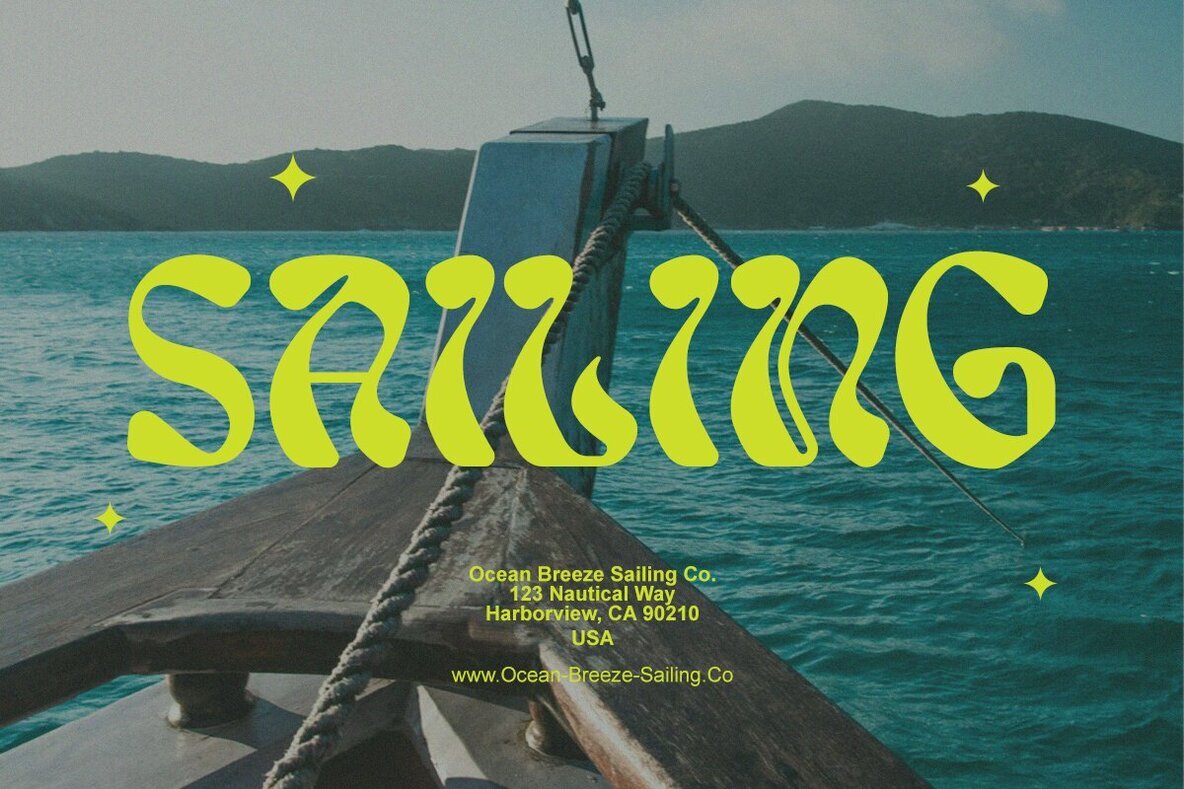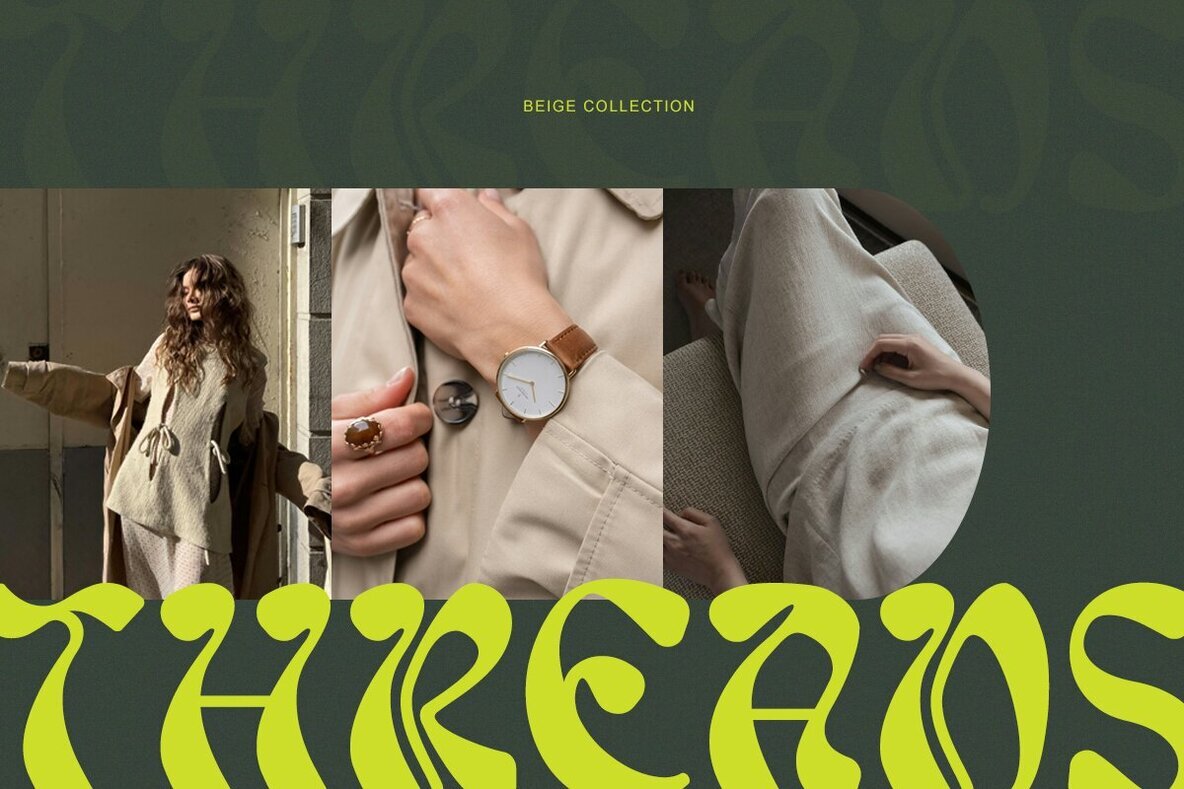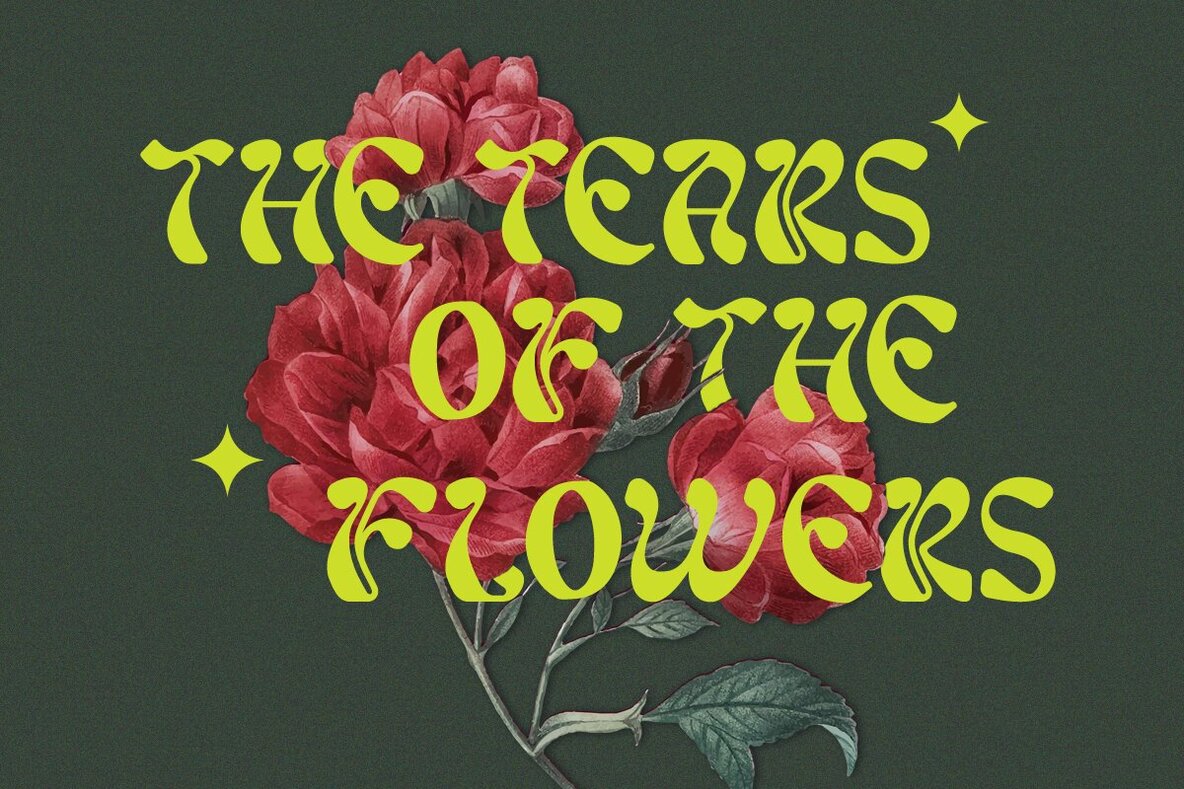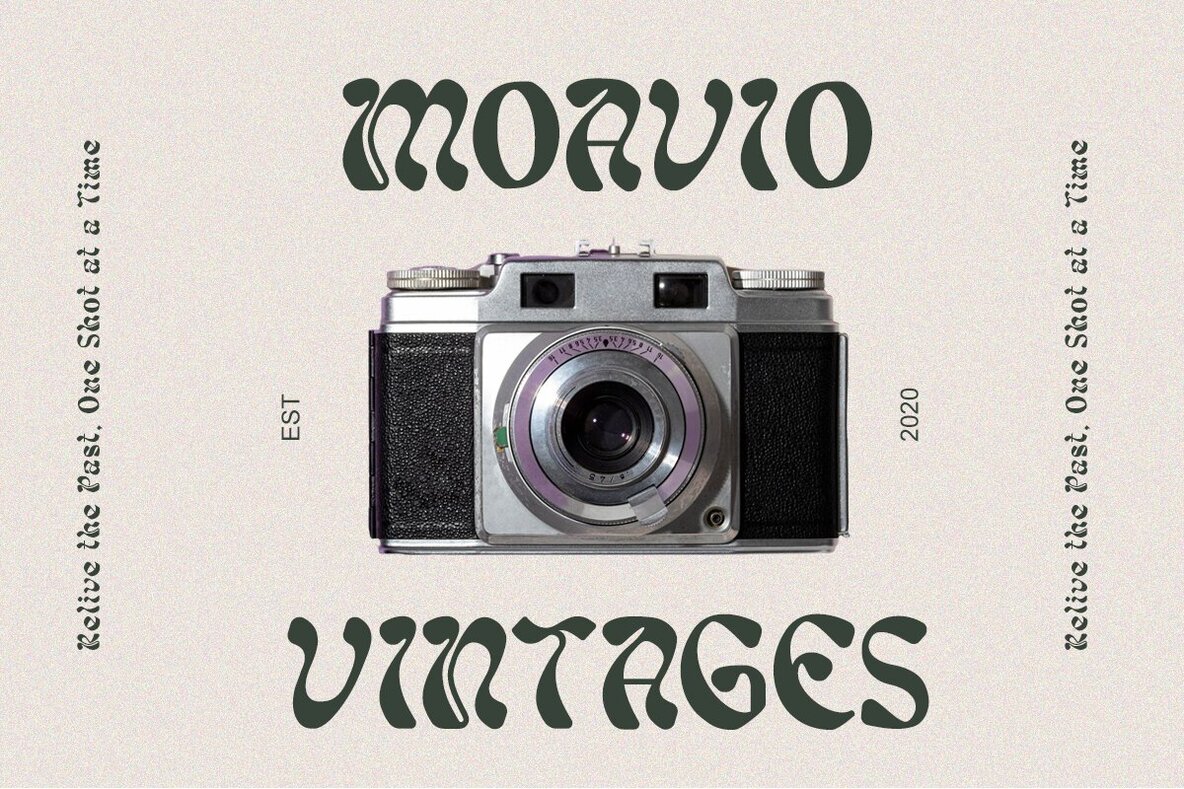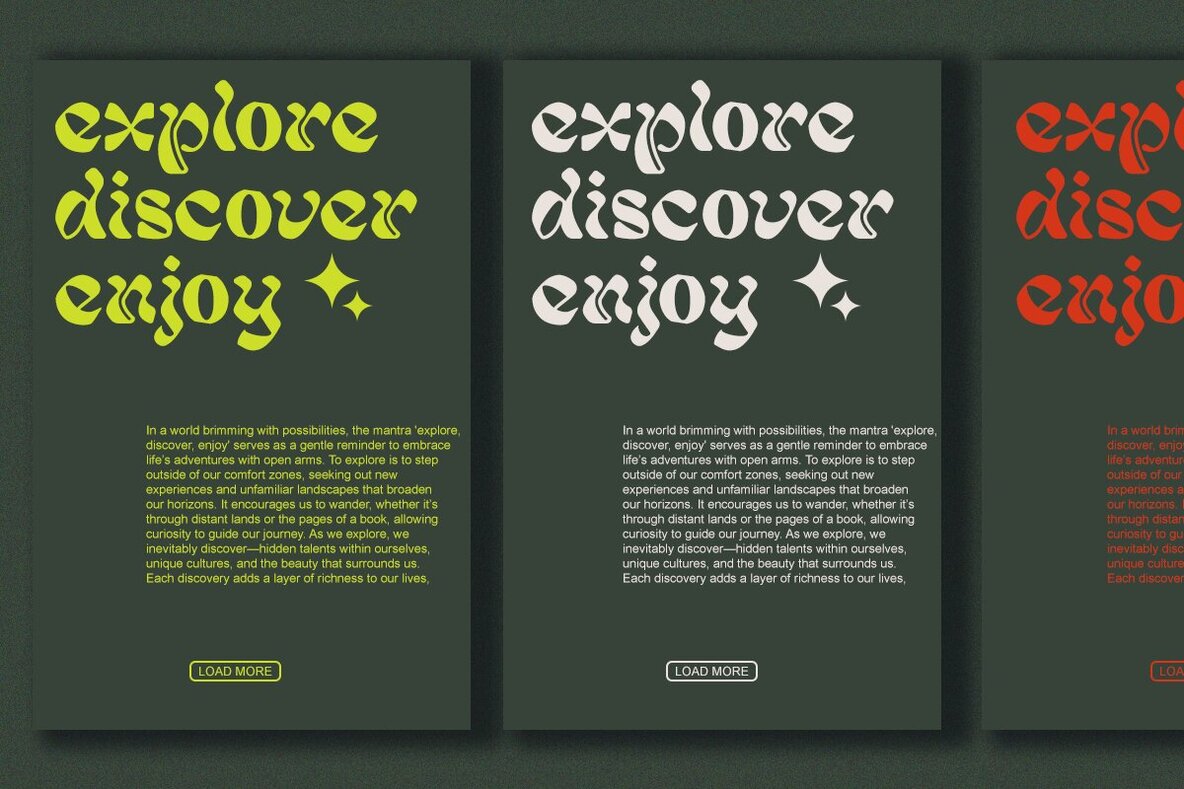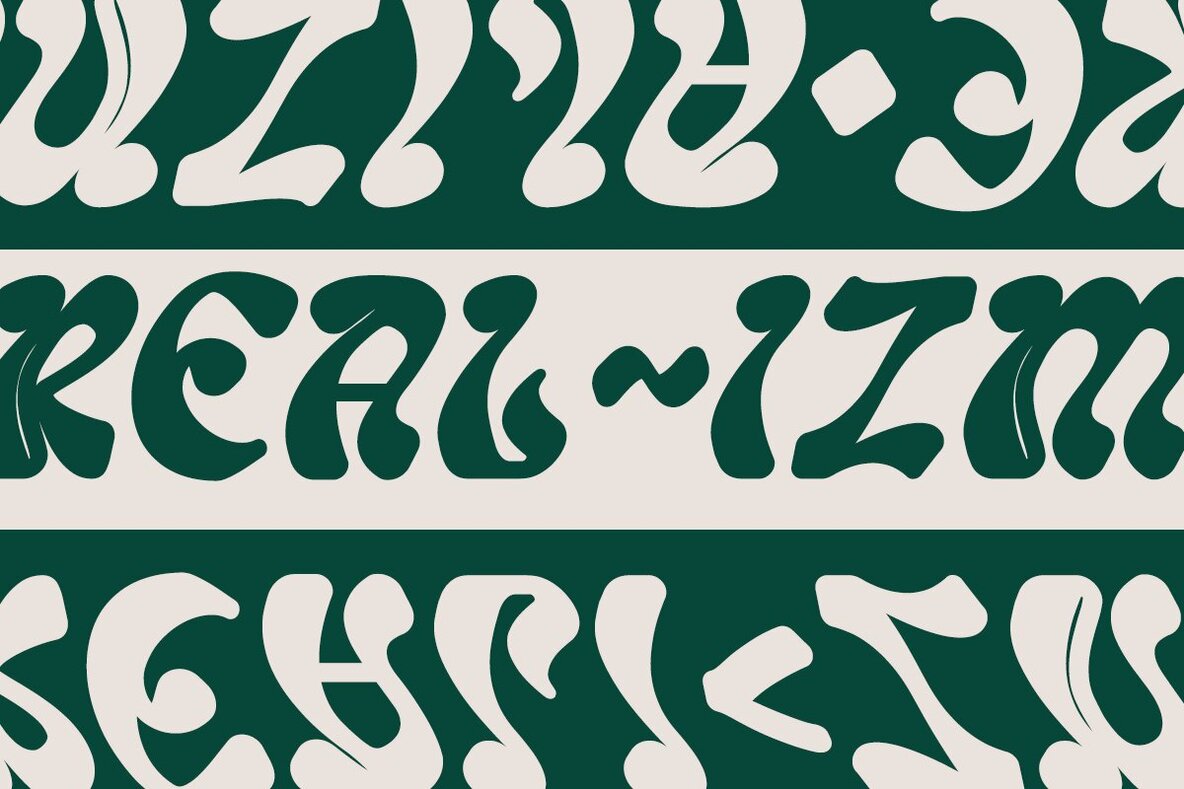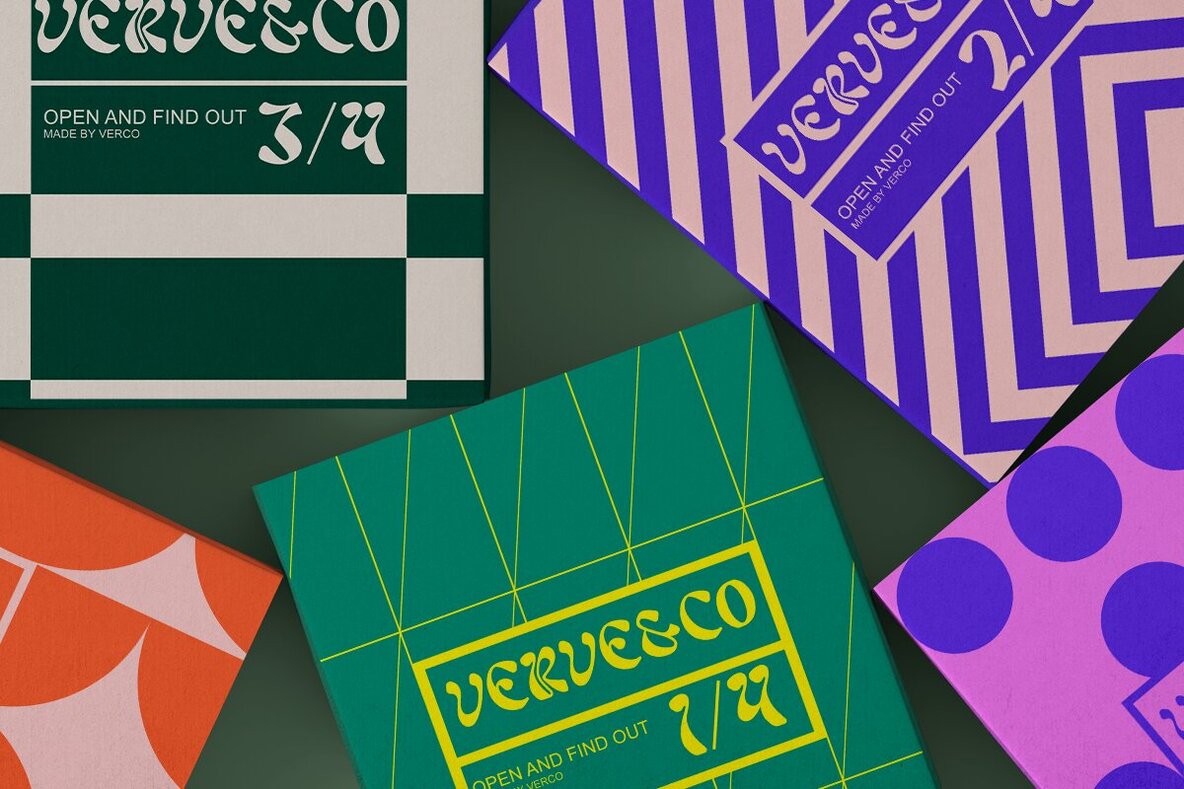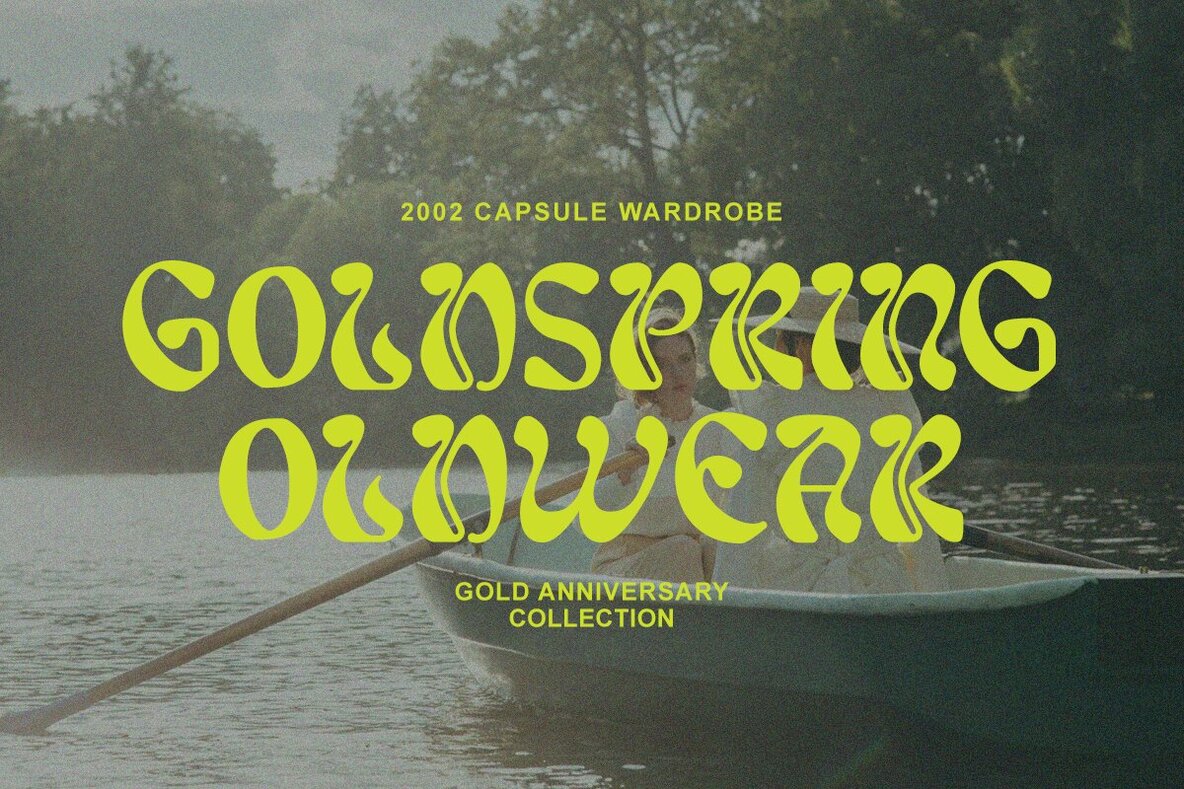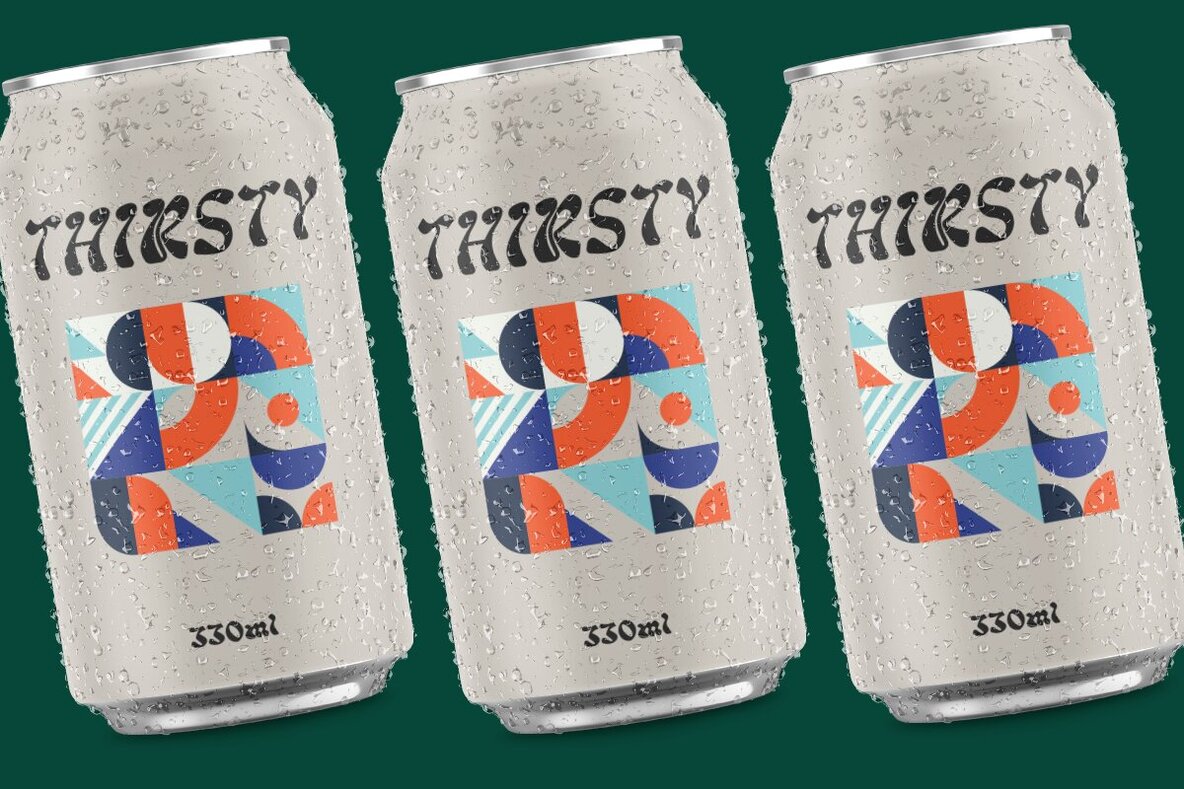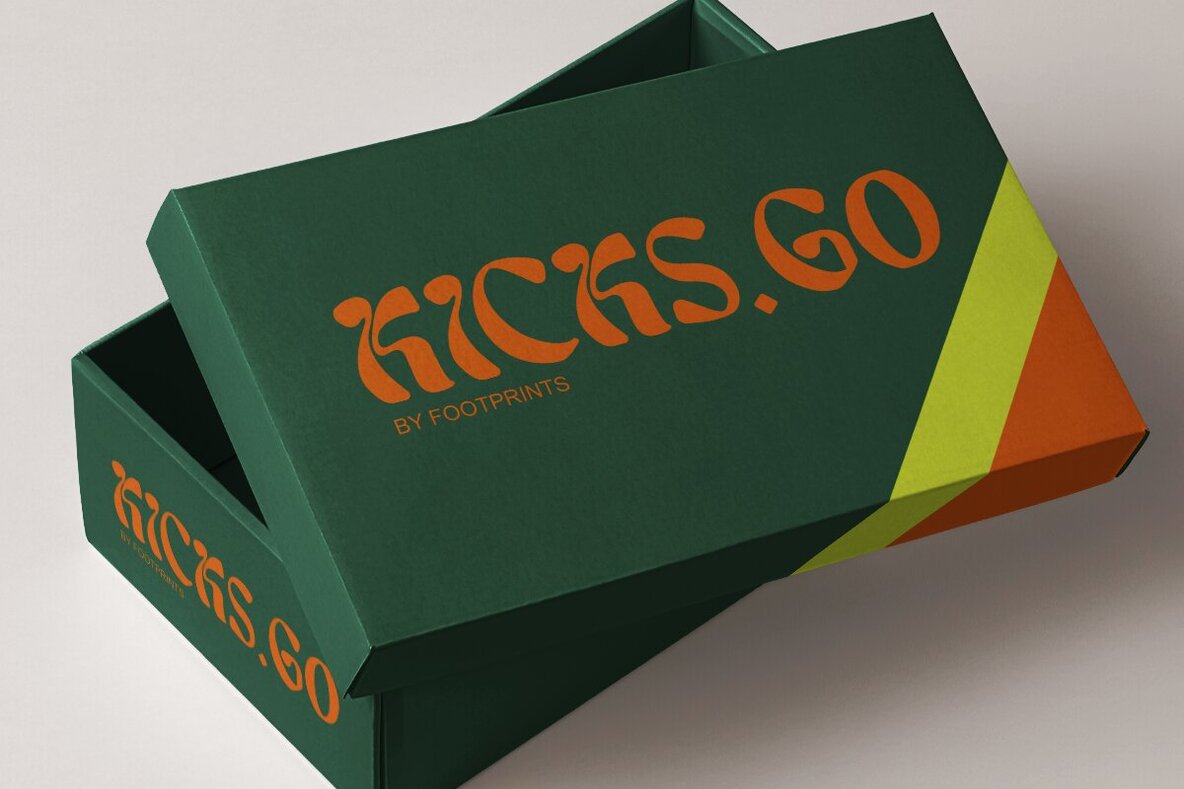
Introducing Realizm, a modern sans display font with psychedelic style . All capital alphabet with a wavy look. Inspired by liquify and water strokes. Realizm will add fresh fun vibes to your designs. This font is perfect for clothing, book covers, titles, etc. Whether you're looking to elevate your designs or make a statement, Realizm is crafted just for you!